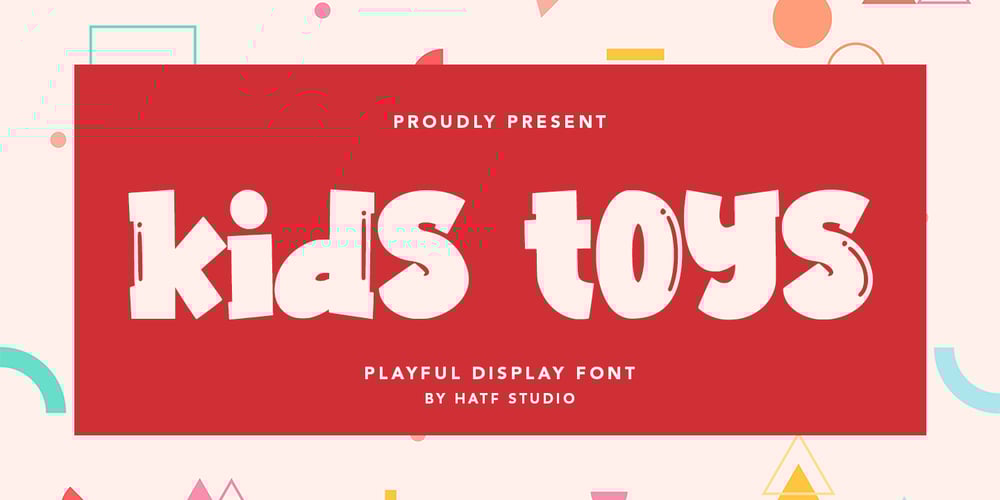
Kids Toys
Kids Toys font
Kids Toys Font Family was designed by Asep Rendi and published by Hatftype. Kids Toys contains 1 styles and family package options. Is a simple display font with distinctive handwritten characters perfect for branding projects, logos, wedding designs, media posts, advertisements, product packaging, product designs, labels, photography, watermarks, invitations, stationery, and any project who need handwritten dishes.Features : • Character Set A-Z • Numerals & Punctuations (OpenType Standard) • Accents (Multilingual characters) • LigatureI really hope you enjoy it.